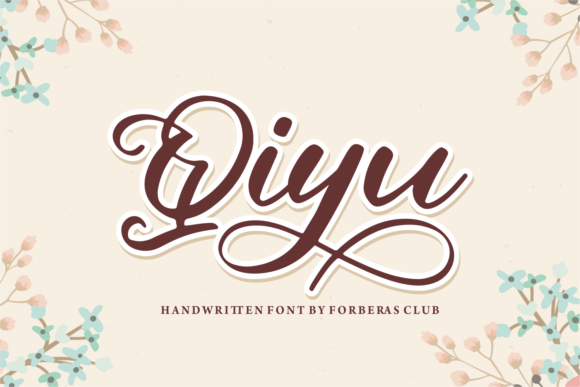
Prologue: Embark on a Typographic Adventure with Qiyu Font—A Symphony of Elegance and Enchantment
In a world brimming with digital artistry, where words take flight and visuals enchant, Qiyu Font emerges as a celestial body, illuminating your creative cosmos with a symphony of elegance and enchantment. This exquisite script font, meticulously crafted by the renowned Forberas Club, promises to transport you to a realm where imagination reigns supreme and inspiration flows unfettered.
Unleash the Magic: Qiyu Font—The Perfect Canvas for Your Creative Expressions
Qiyu Font is a font of pure magic, a typographic treasure trove that will ignite your creativity and transform your designs into captivating masterpieces. Its gracefully flowing letters, adorned with delicate flourishes and playful strokes, possess an uncanny ability to capture the essence of joy, innocence, and wonder—qualities that resonate deeply with children, making it the ideal font for children's invitations.
A Symphony of Elegance: Qiyu Font—A Visual Treat for the Discerning Eye
With Qiyu Font, elegance is not merely an attribute; it's an intrinsic essence. Each letterform is meticulously designed to exude grace and sophistication, ensuring that your designs command attention and leave a lasting impression. Whether you're crafting headings, logos, advertisements, printed quotes, packaging, or social media content, Qiyu Font will elevate your creations, imbuing them with an air of distinction and charm.
Create Designs that Dance: Qiyu Font—A Journey of Joy and Inspiration
With Qiyu Font, your designs will transcend the boundaries of the ordinary, embarking on a whimsical journey of joy and inspiration. Its enchanting curves and playful flourishes will infuse your work with a sense of movement and energy, captivating your audience and leaving them spellbound. From the whimsical strokes of a children's invitation to the enchanting allure of a wedding invitation, Qiyu Font will transform your designs into dynamic expressions of artistry.
Make Your Brand Shine: Qiyu Font—The Secret to Unforgettable Branding
In the fiercely competitive world of branding, differentiation is the key to success. Qiyu Font offers a unique and captivating identity that will make your brand stand out from the crowd. Its intricate details and timeless beauty will resonate with your target audience, creating an emotional connection that fosters loyalty and trust. Whether you're a small business owner, an entrepreneur, or a creative professional, Qiyu Font will elevate your brand, propelling it to new heights of recognition and success.